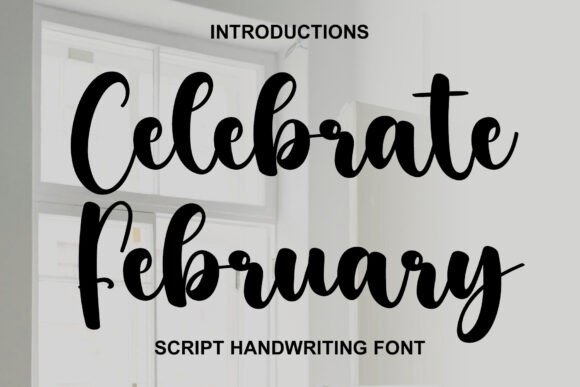
Celebrate February Font: Elevate Your Designs with Elegance
The Celebrate February Font is a stunning, flowing handwritten font that exudes elegance and sophistication. With its unique and timeless style, this font is perfect for designers looking to add a touch of class to their projects. In this article, we’ll explore the features and benefits of Celebrate February, and show you how to make the most of this beautiful font.
What is Celebrate February Font?
Celebrate February is a carefully crafted handwritten font, designed to bring a sense of luxury and refinement to your designs. Its flowing lines and elegant touch make it perfect for a wide range of projects, from wedding invitations and branding materials to social media graphics and more.
This font is characterized by its incredibly distinct and timeless style, which is sure to capture the attention of your audience. Whether you’re looking to create a romantic and whimsical atmosphere or a sophisticated and professional one, Celebrate February is the perfect choice.
Key Features of Celebrate February Font
So, what sets Celebrate February apart from other fonts? Here are some of its key features:
- Flowing Handwritten Style: Celebrate February has a beautiful, flowing handwritten style that’s perfect for creating elegant and sophisticated designs.
- Elegant Touch: This font has an undeniable touch of elegance, making it perfect for designers who want to add a sense of luxury to their projects.
- Unique and Timeless Style: Celebrate February has a unique and timeless style that’s sure to make your designs stand out.
- Highly Versatile: This font is perfect for a wide range of projects, from wedding invitations and branding materials to social media graphics and more.
Benefits of Using Celebrate February Font
So, why should you choose Celebrate February for your next project? Here are some of the benefits of using this beautiful font:
- Adds Elegance and Sophistication: Celebrate February adds a touch of elegance and sophistication to your designs, making them perfect for high-end clients or special occasions.
- Creates a Unique Look: This font has a unique and timeless style that’s sure to make your designs stand out from the crowd.
- Highly Readable: Celebrate February is highly readable, even at small sizes, making it perfect for body text and captions.
Tips and Tricks for Using Celebrate February Font
Here are some tips and tricks for getting the most out of Celebrate February:
- Use it for Headings and Titles: Celebrate February is perfect for headings and titles, where its elegant and sophisticated style can really shine.
- Pair it with Other Fonts: Experiment with pairing Celebrate February with other fonts to create a unique and interesting look.
- Experiment with Colors: Try out different colors and textures to add depth and interest to your designs.
- Use it for Branding: Celebrate February is perfect for branding materials, such as logos and business cards, where its elegant style can help to create a professional and sophisticated image.
Celebrate February Font is a beautiful and elegant handwritten font that’s perfect for designers looking to add a touch of sophistication to their projects. With its unique and timeless style, this font is sure to make your designs stand out. Whether you’re creating wedding invitations, branding materials, or social media graphics, Celebrate February is the perfect choice. So why not give it a try and see the difference it can make?
- What is Celebrate February Font?
- Celebrate February Font is a flowing handwritten font, described by an elegant touch, perfect for your favorite projects.